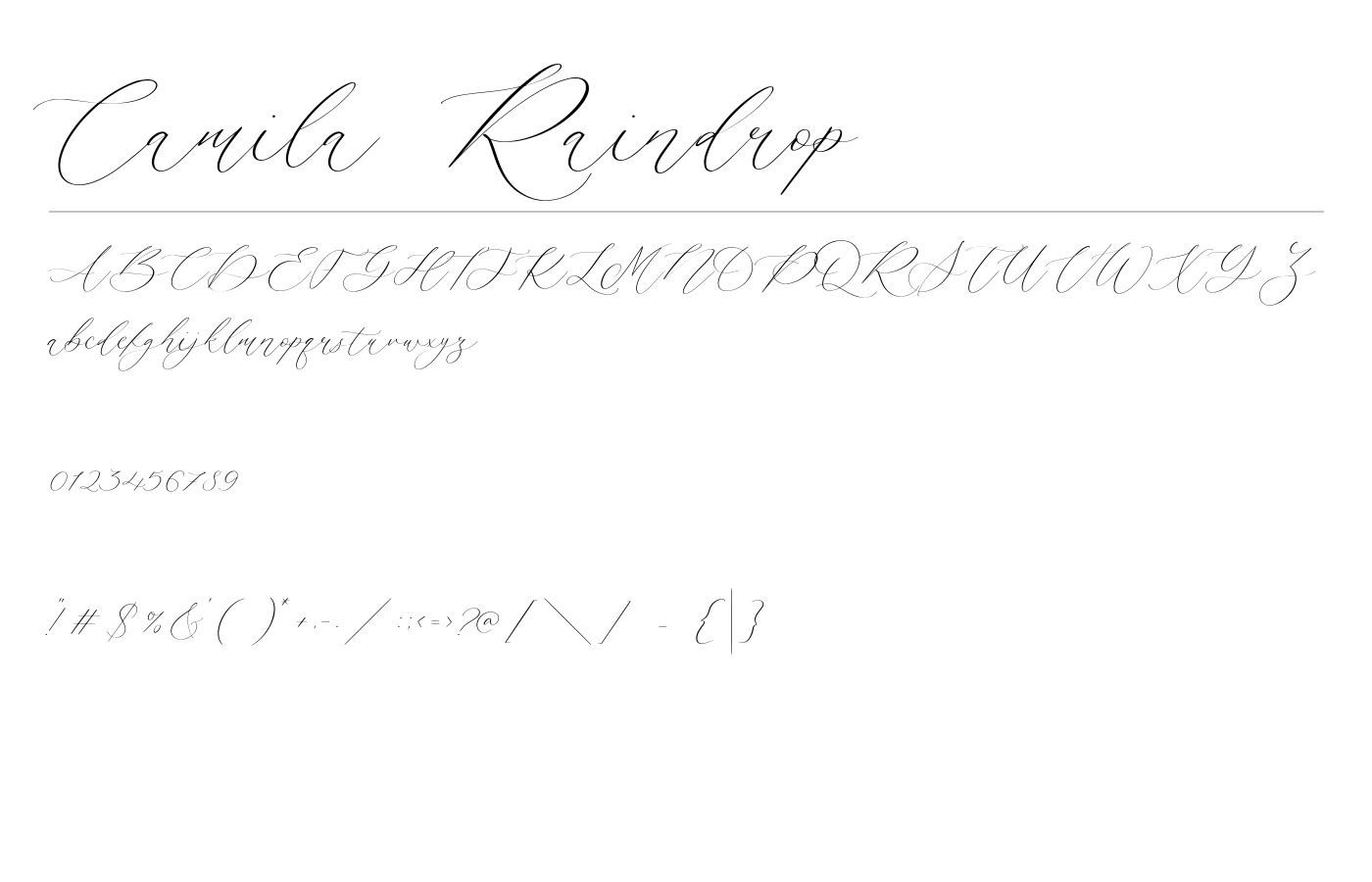
Camila Raindrop is a delicate, elegant script font with flowing, thin strokes that mimic graceful handwriting. Its slender, airy letterforms convey a sense of sophistication and romance, making it perfect for wedding invitations, luxury branding, and stylish editorial design where a refined, personal touch is desired. This font shines in applications that benefit from a soft yet distinct artistic flair.
Camila Raindrop Font
About Camila Raindrop Font
| Font family | Camila Raindrop Font |
| Designer | Letterative Studio |